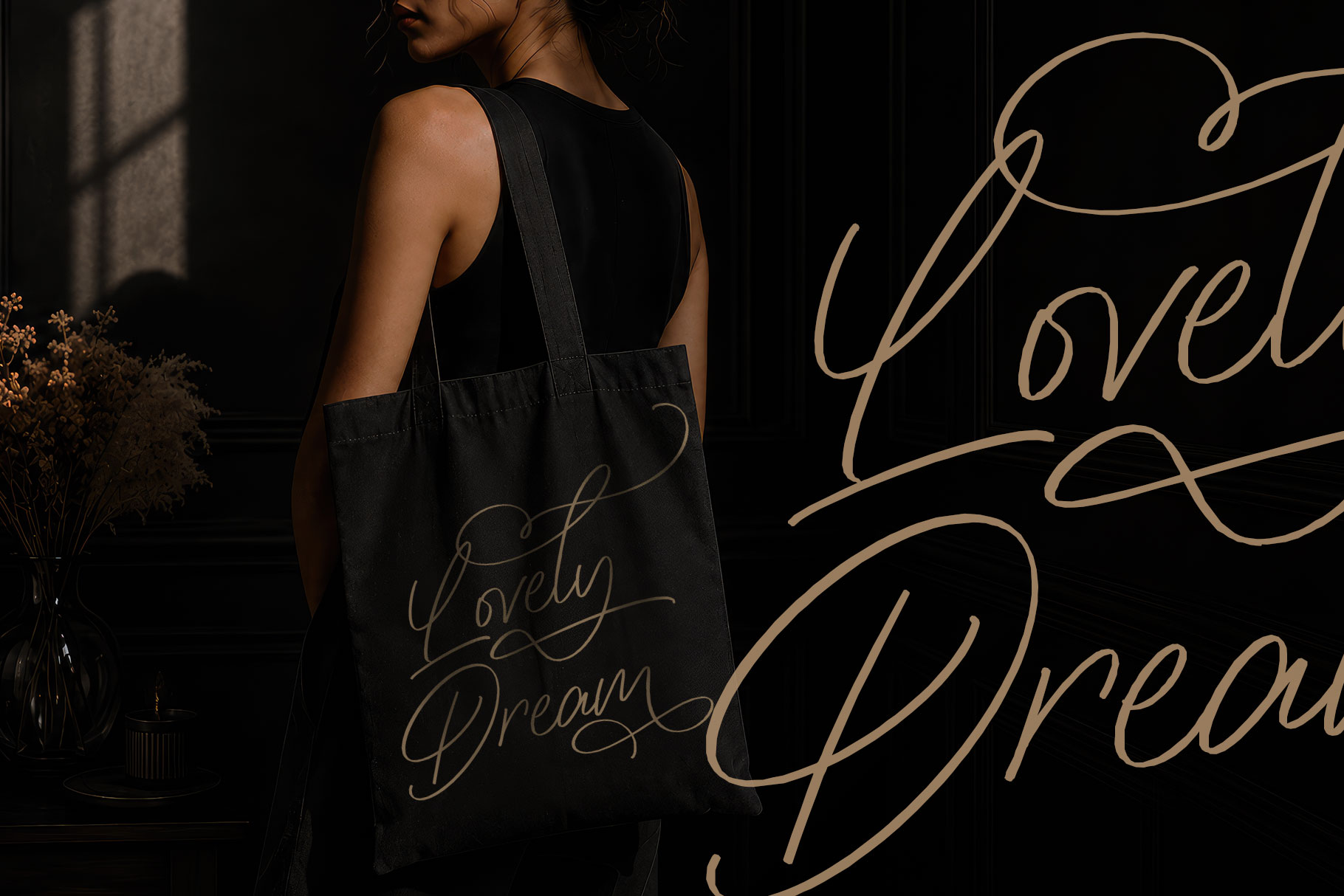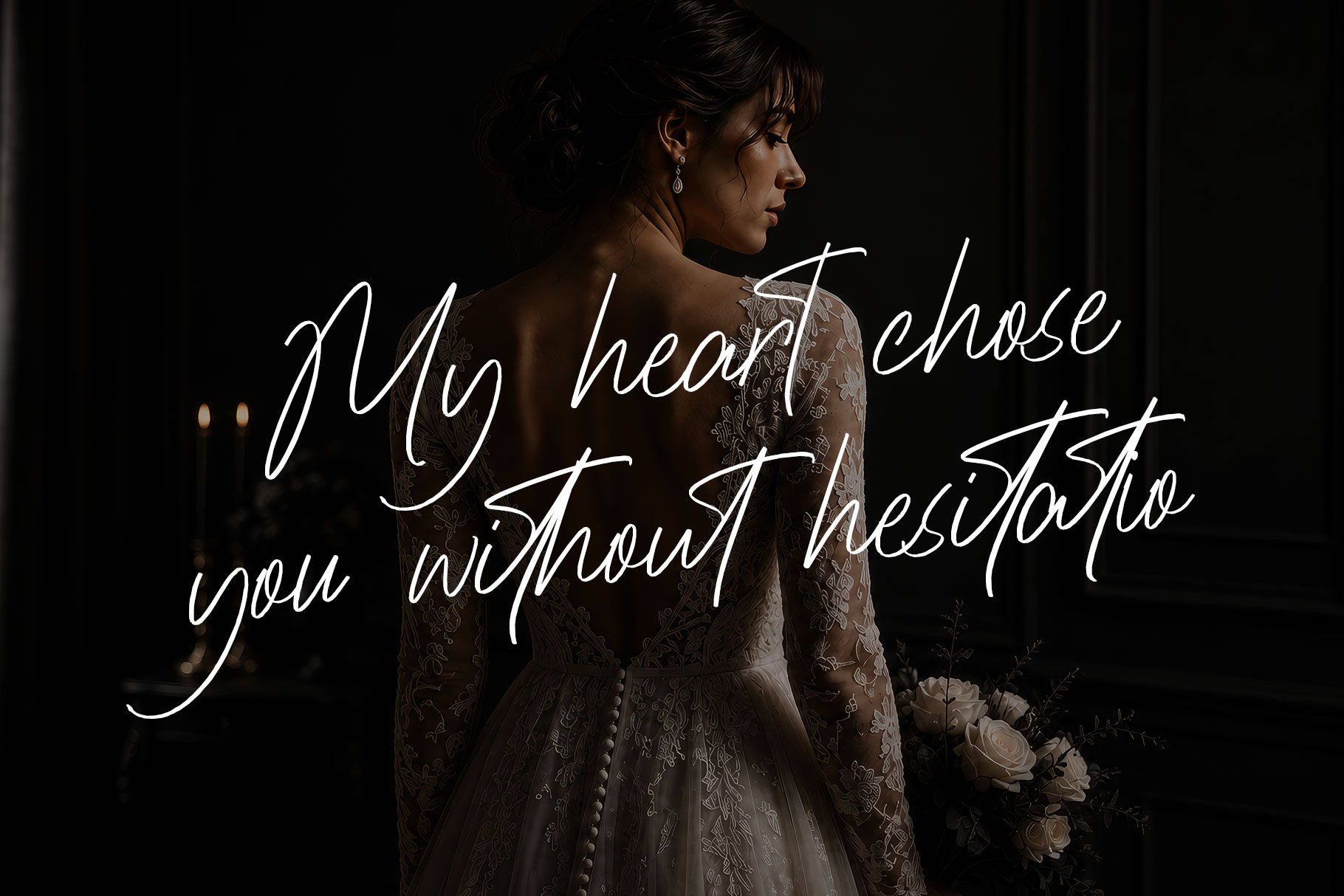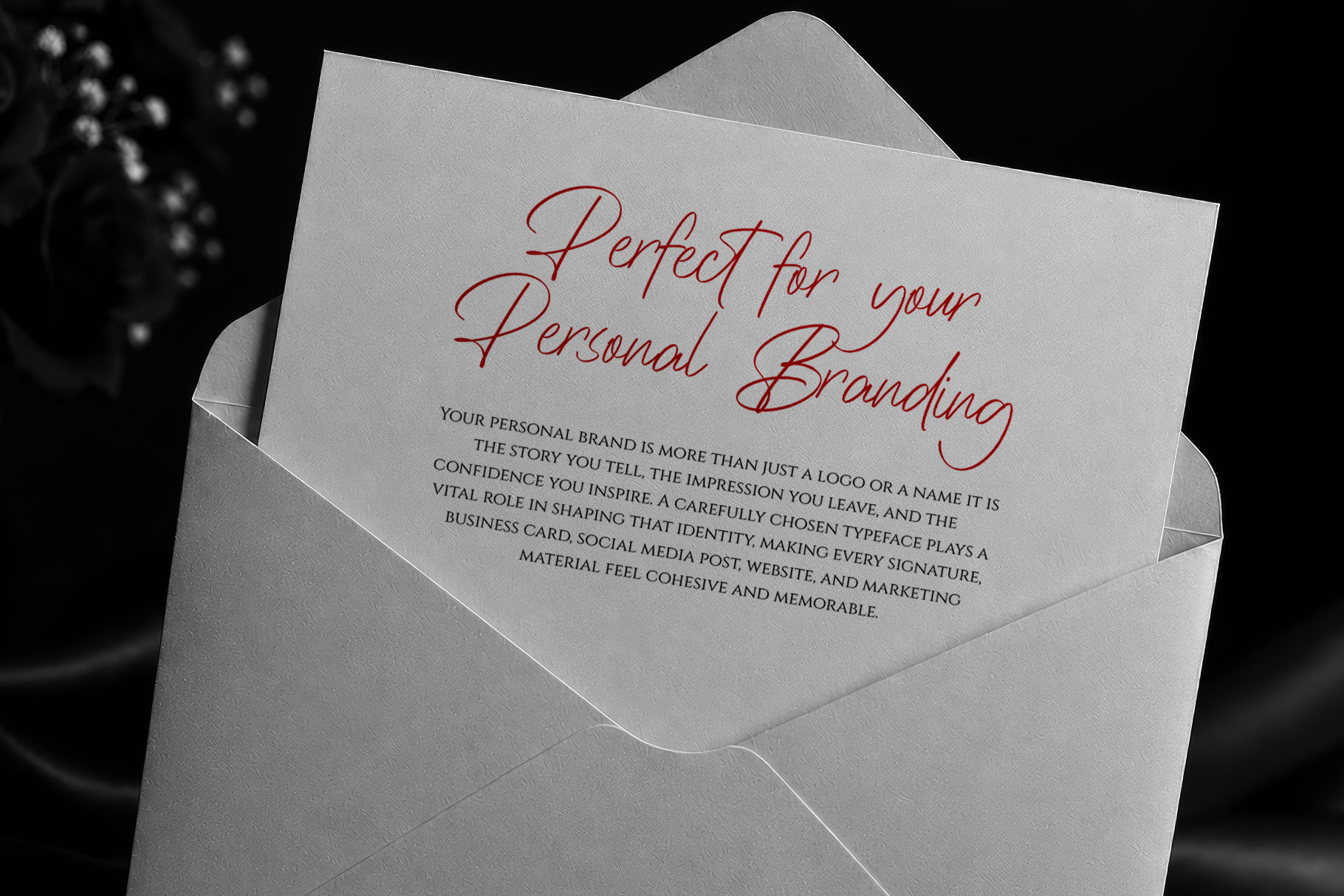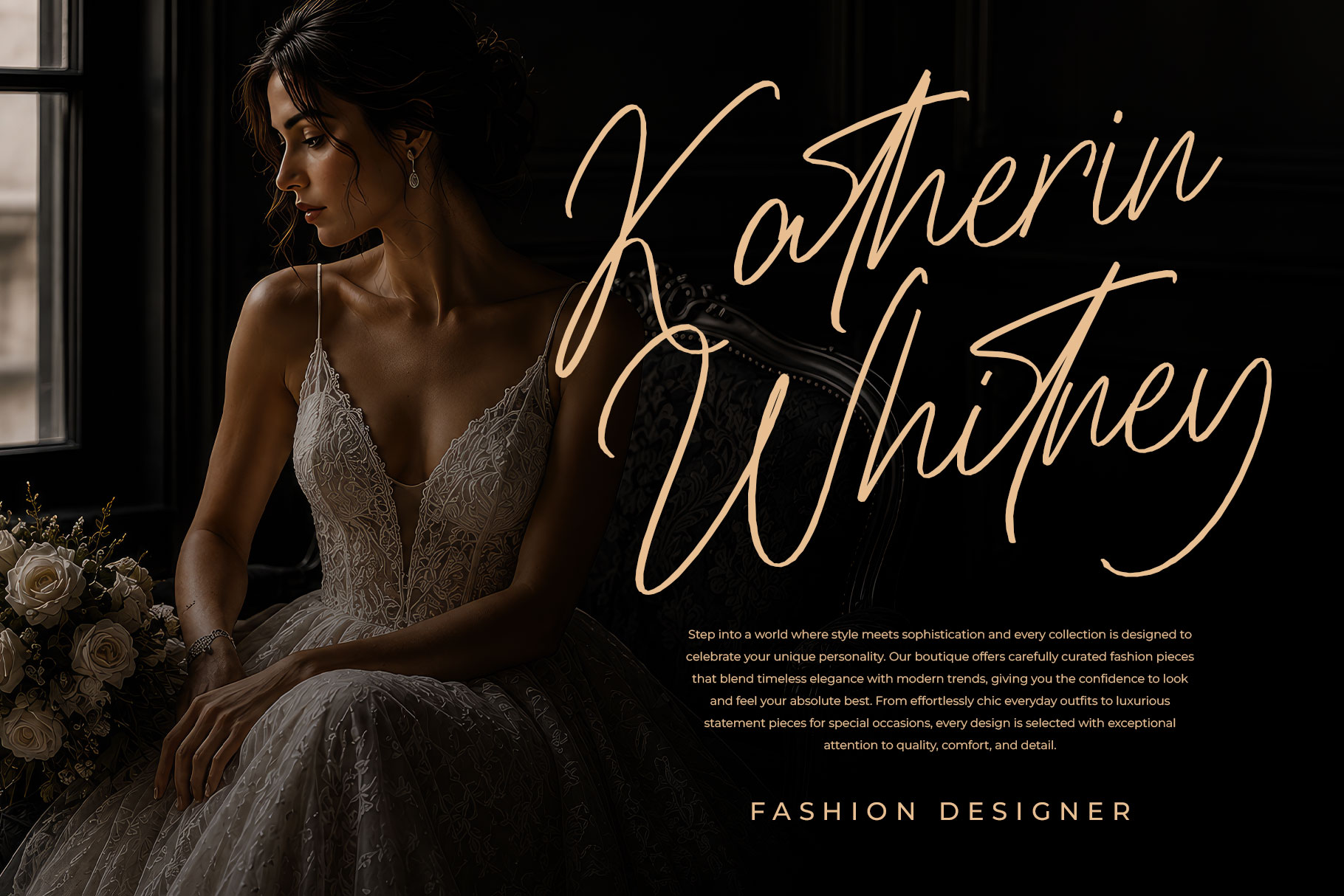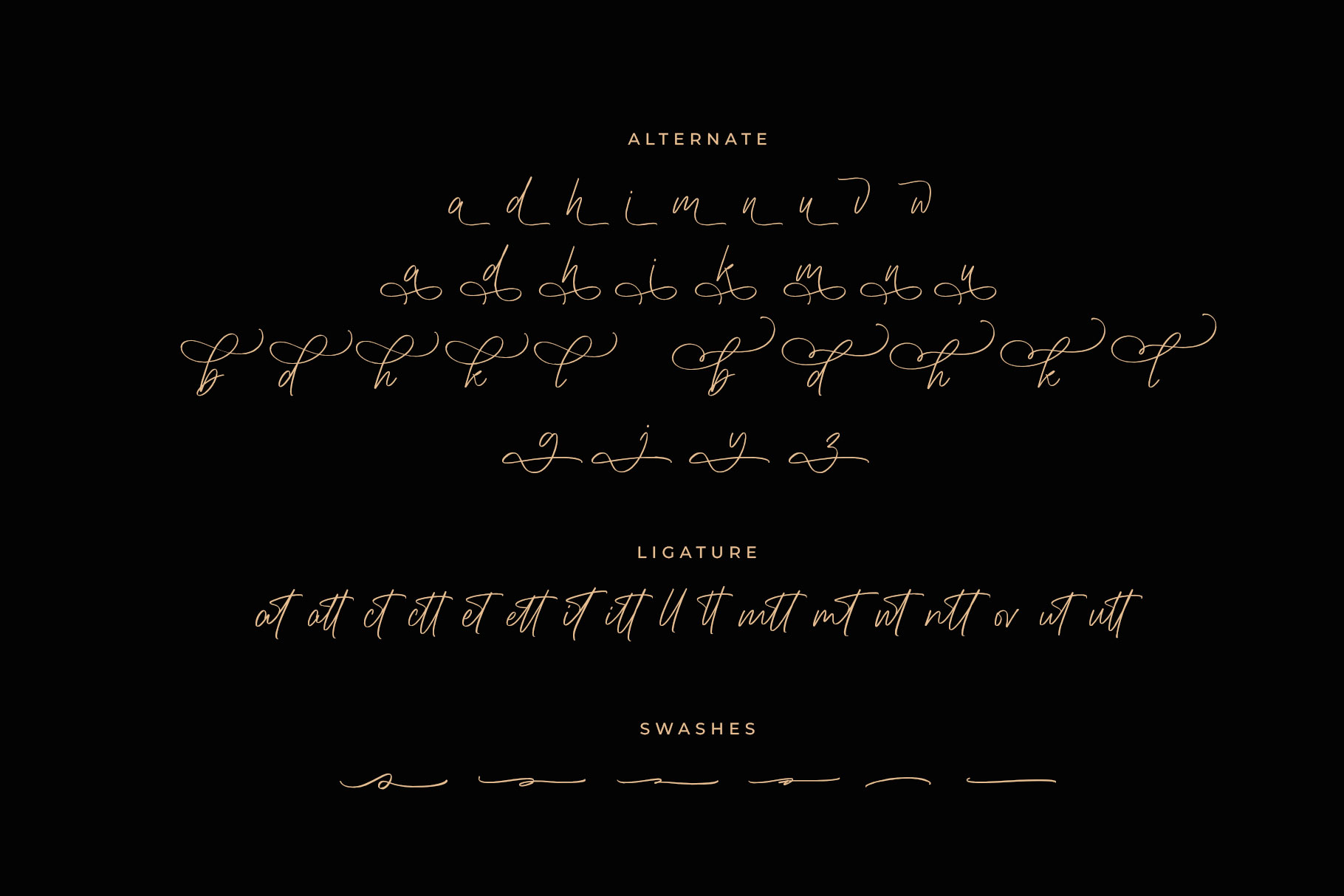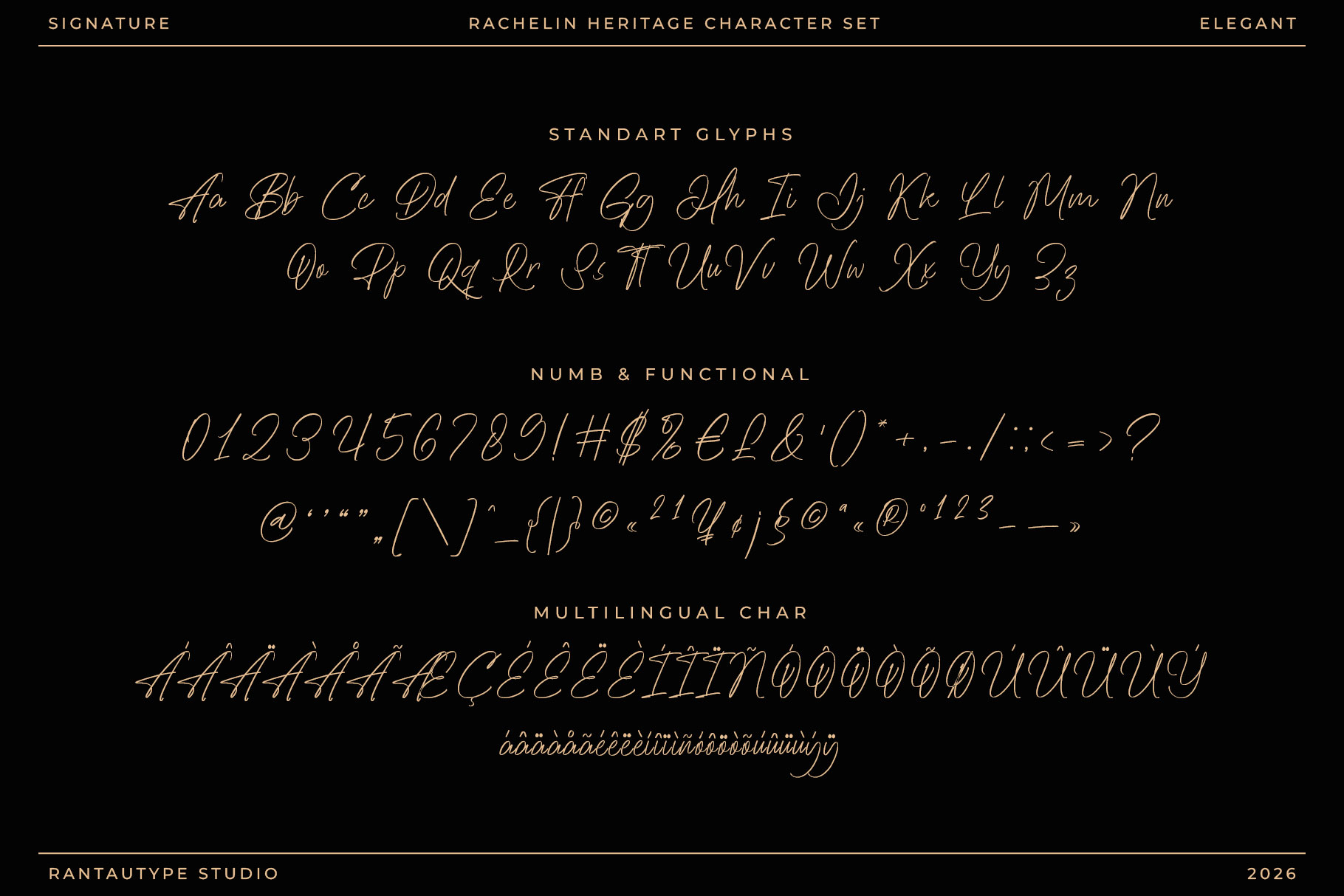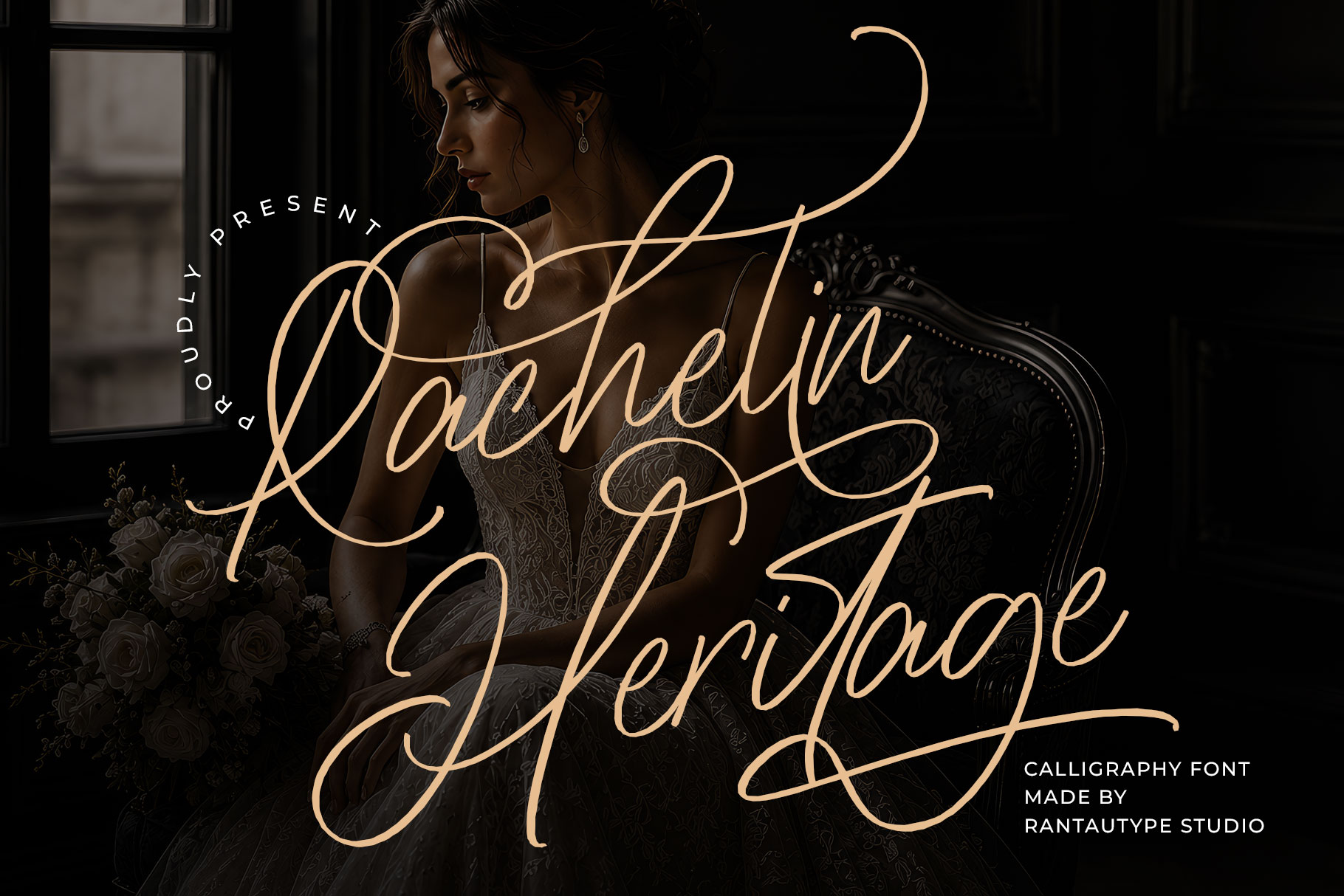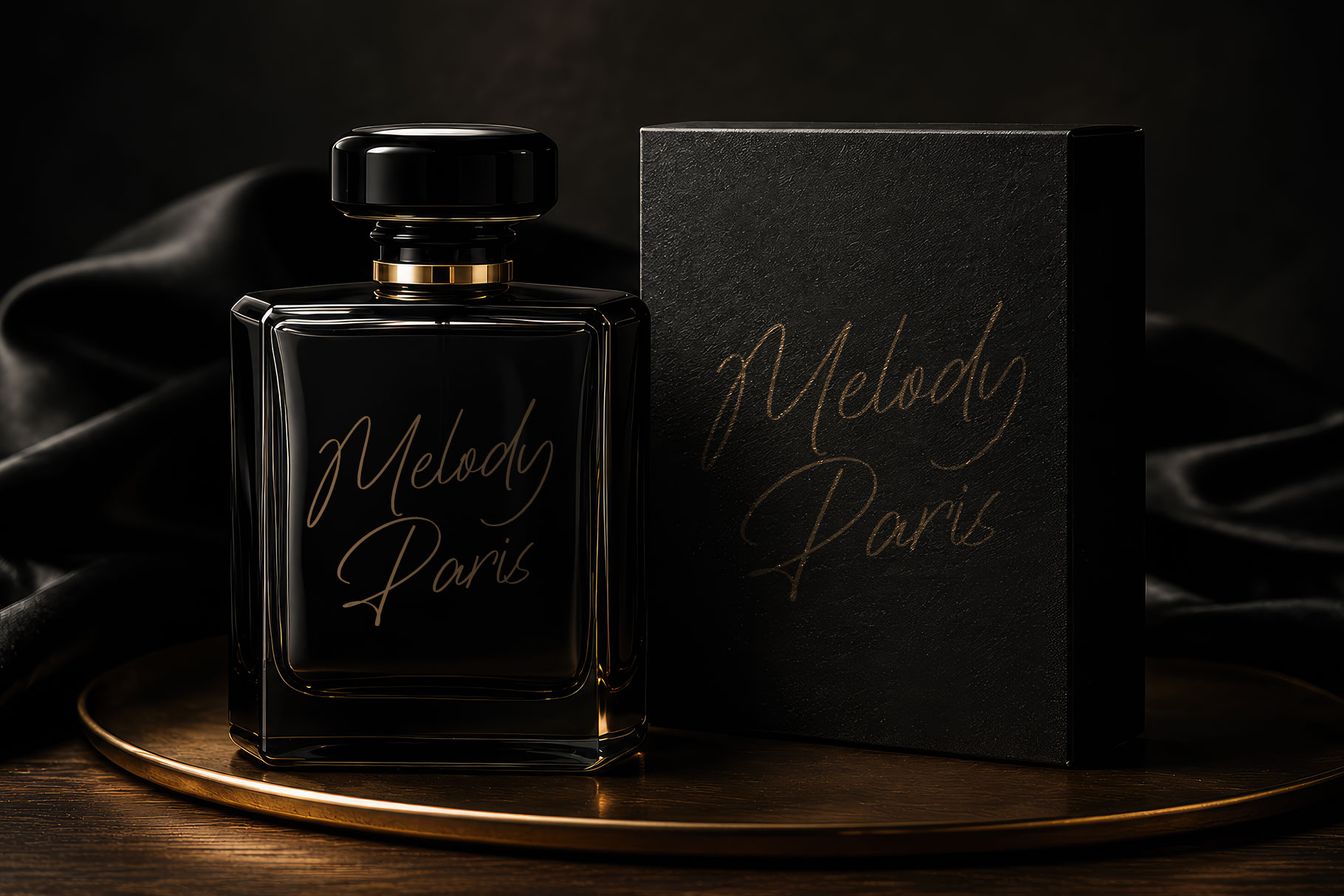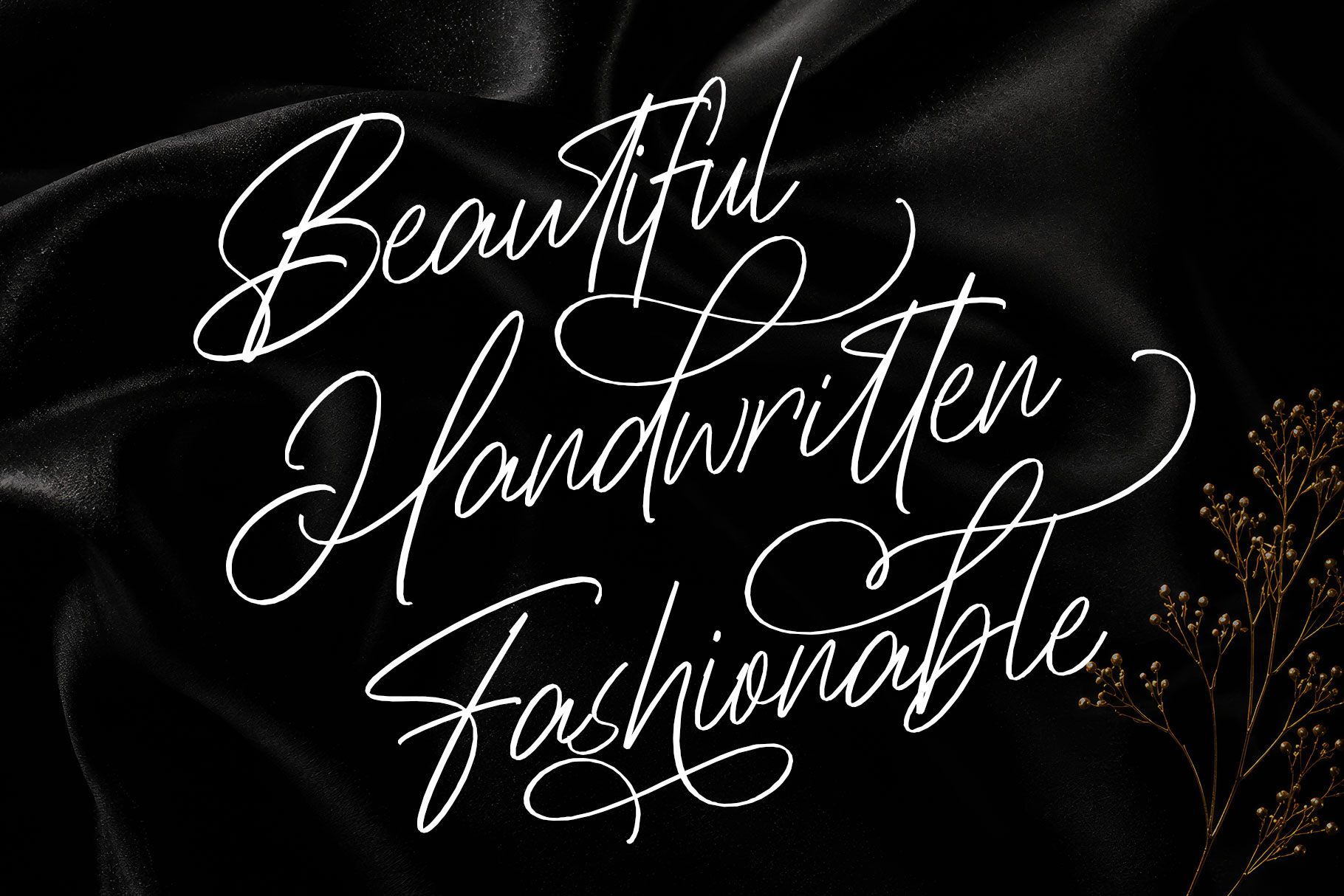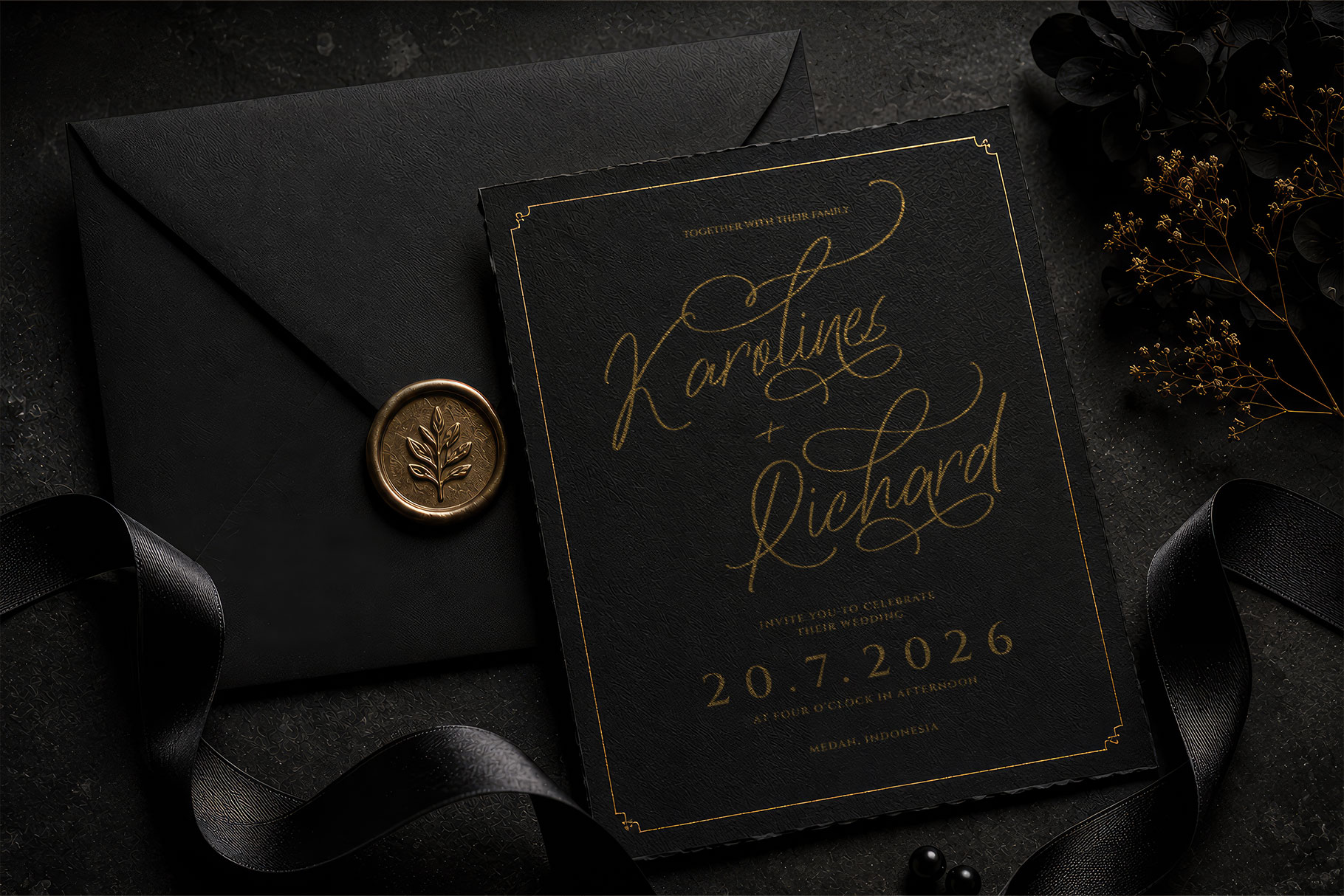
Rachelin Heritage is elegant modern calligraphy font, a graceful typeface that seamlessly blends timeless sophistication with contemporary style. Featuring flowing handwritten strokes, delicate curves, and beautifully crafted swashes, this font captures the natural beauty of authentic penmanship while maintaining exceptional readability.
Rachelin Heritage designed for creatives who appreciate elegance and detail, this font is ideal for designers, entrepreneurs, content creators, and luxury brands seeking a memorable visual identity. The sweeping alternates and decorative swashes allow you to craft unique typographic compositions that feel sophisticated and effortlessly artistic.
Rachelin Heritage Calligraphy Font